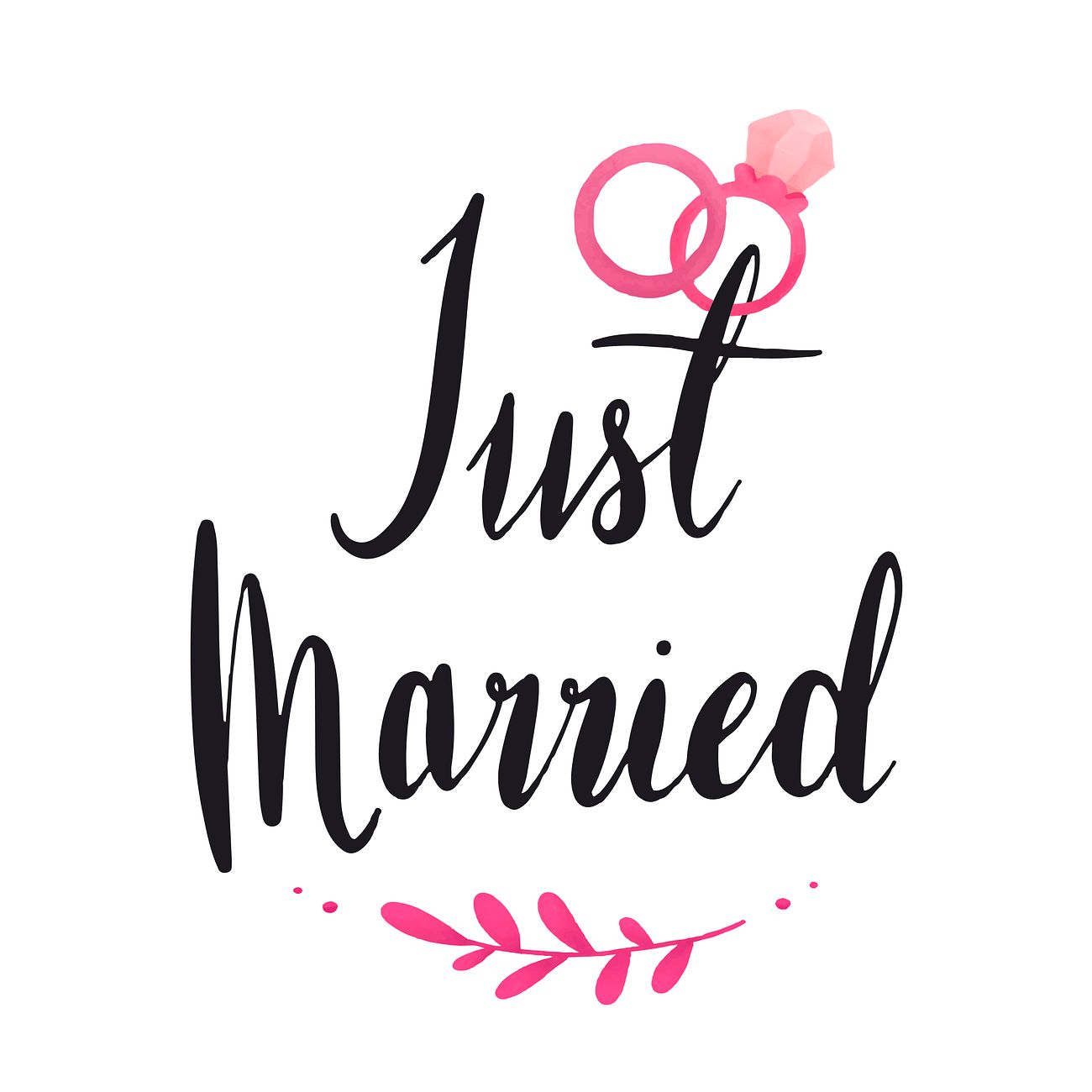
Just Married Font
Just Married Font - We have the best collection of free wedding. Celebrate marriage with these beautiful modern calligraphy fonts. Web download beautiful, free wedding fonts that will make your special day even more unforgettable. 1 fonts from $8.00 $3.20 family. Just married is a modern calligraphy font family published by gatype.
Just Married Is A Modern Calligraphy Font Family Published By Gatype.